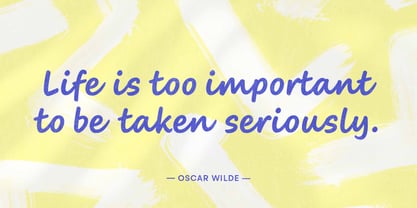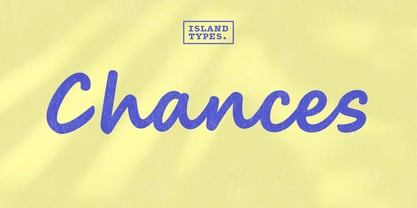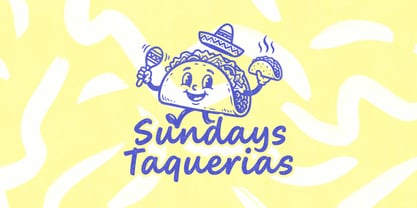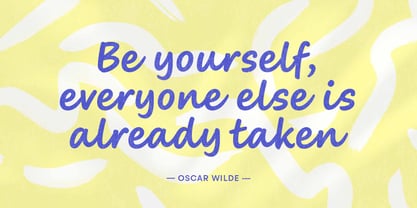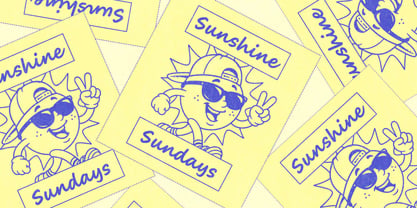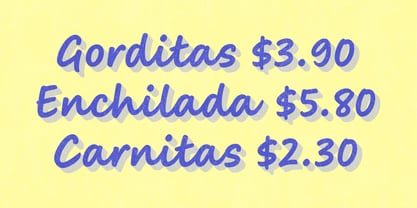
Chances
A família de fontes Chances foi desenhada por Chris York e publicada pela Island Type Foundry. Chances contém 1 estilos.
A friendly handwritten script font. This connecting script is written with a thick marker pen and uses an informal yet legible handwriting style. Perfect for packaging, logos, signage or anywhere that could use a friendly human touch. The design is smooth and free flowing with a casual style. Available in one weight but packed with symbols, extended punctuation and a wide range of language support.